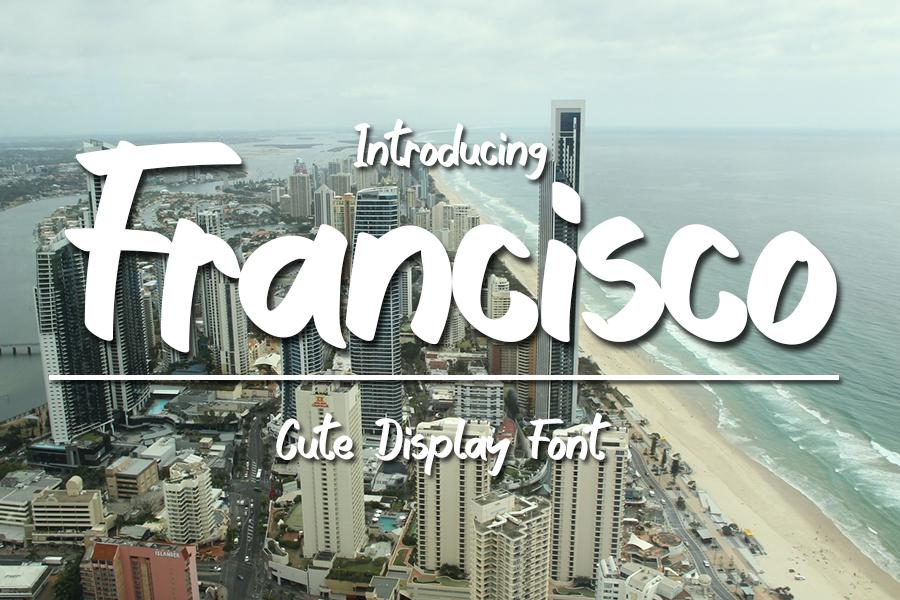
Francisco Font Description
Francisco is a cute, paint brushed display font. It looks joyful and fun and it is the ideal choice for a wide range of designs. This original look will appeal to a wide range of crafty ideas, from letterheads and titles, to stationery.